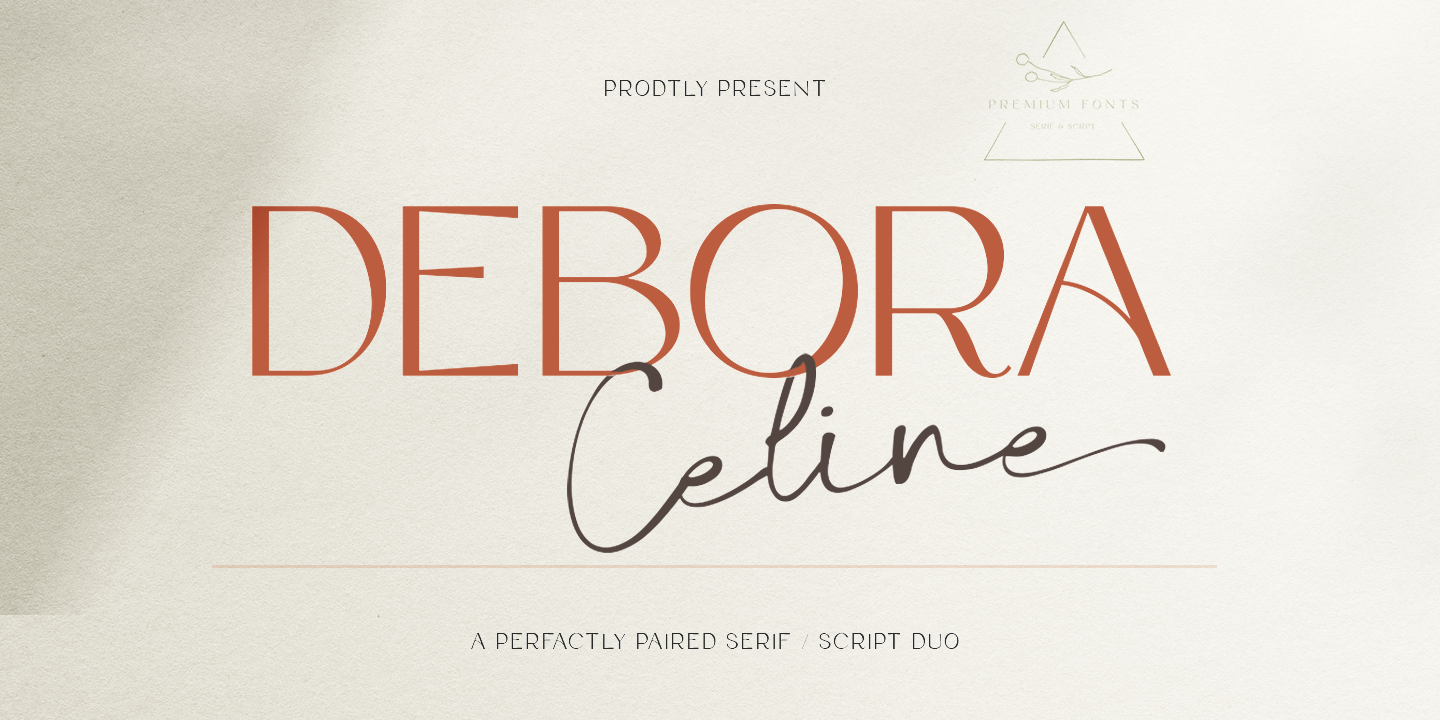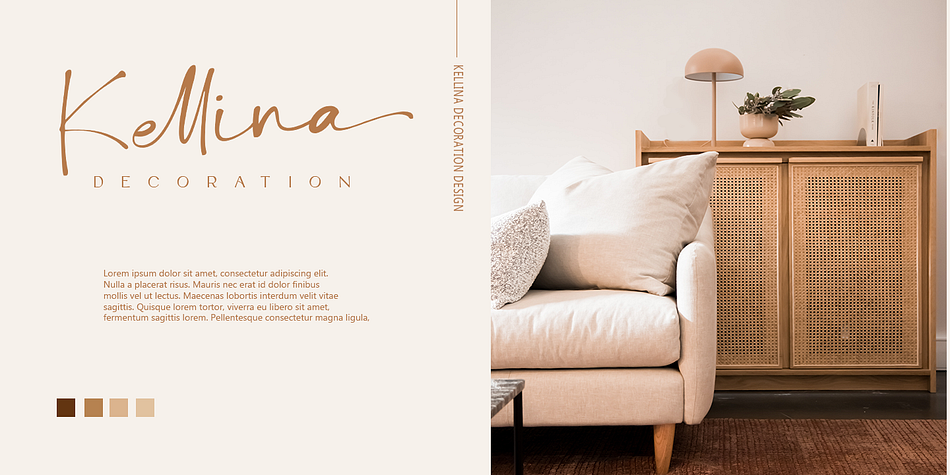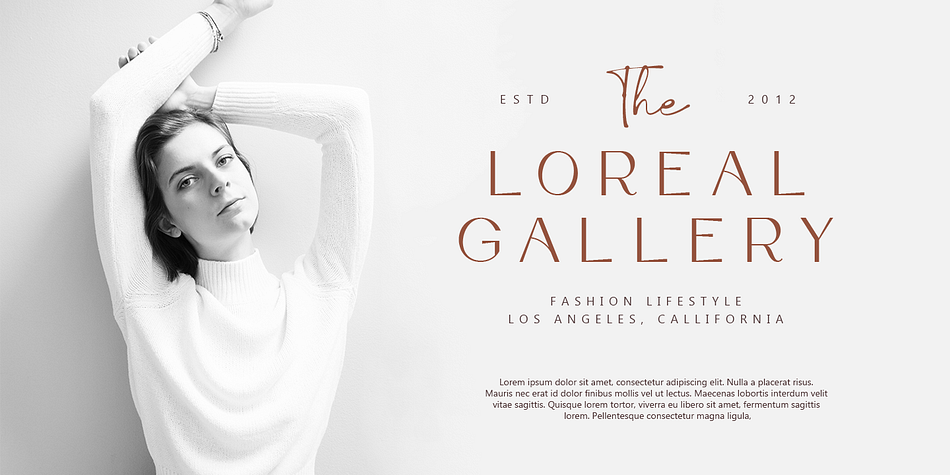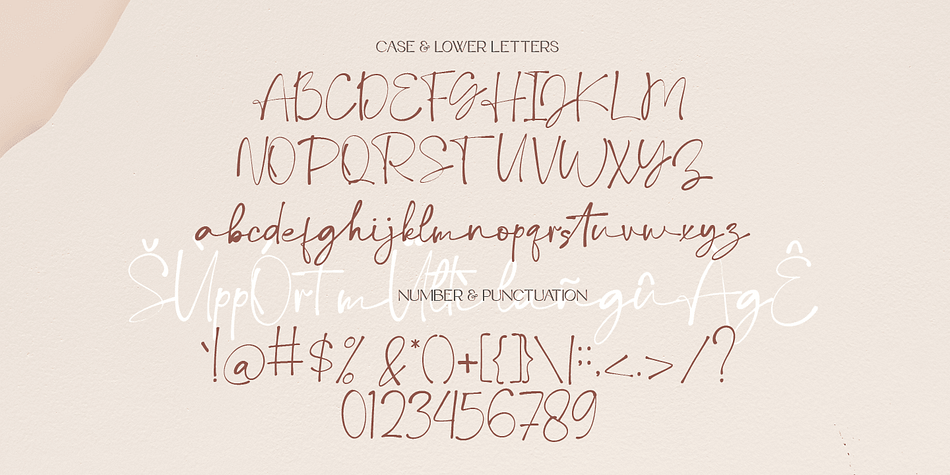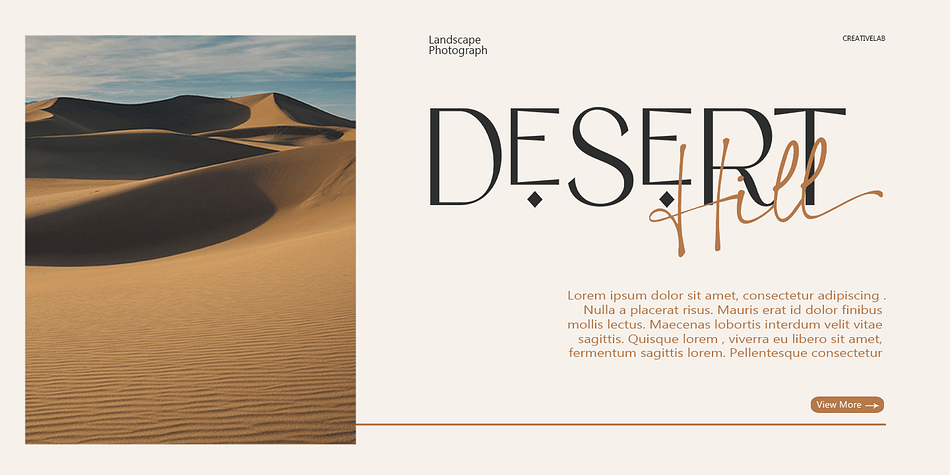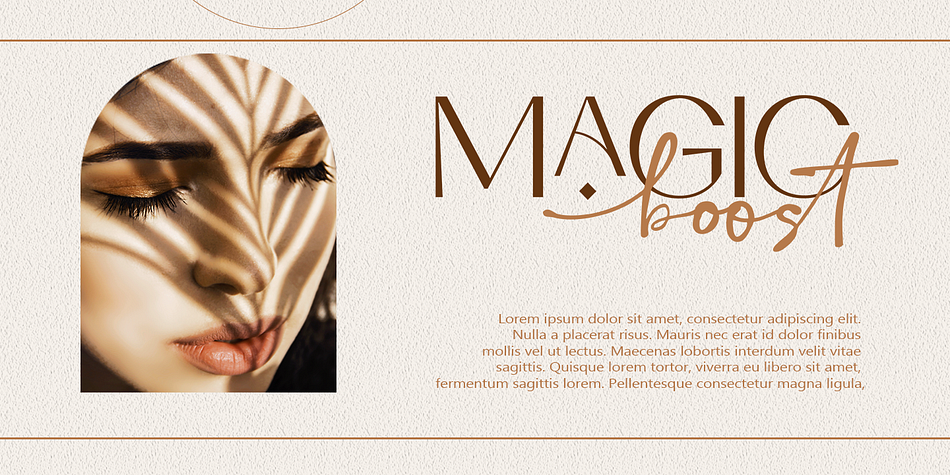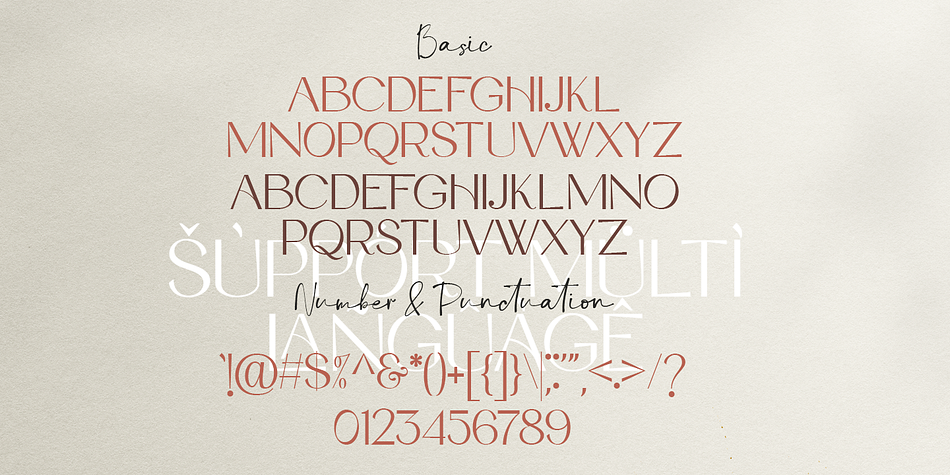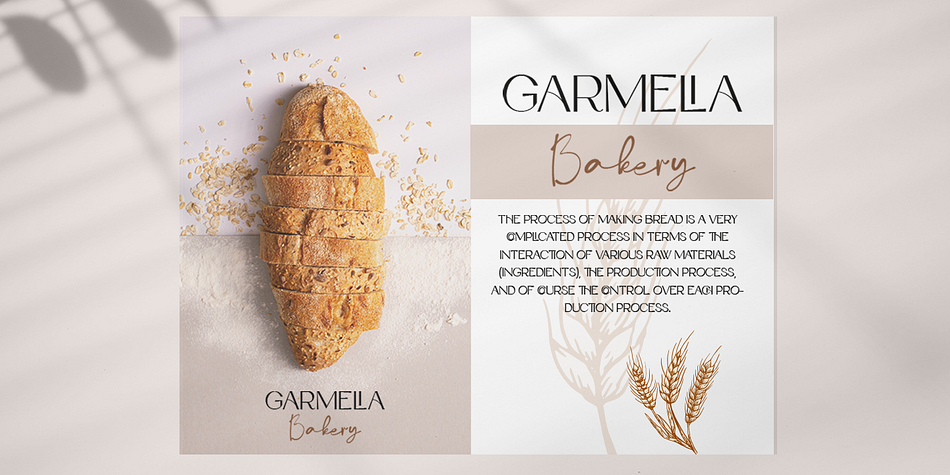
Debora Celina
Debora Celina is a display sans and modern calligraphy font family. This typeface has two styles and was published by Gatype.
Debora Celina is a font Duo Script and Serif that is simple and unique looking.This customizable font will look great on a variety of design ideas such as Christmas themes, valentines, posters, invitations, weddings, branding projects, social media posts, magazines, book covers and more! This will add a fun and friendly touch to any of your projects.This font is PUA encoded which means you can access all the glyphs and sweeps easily.